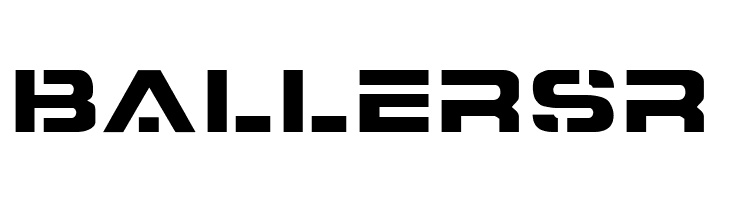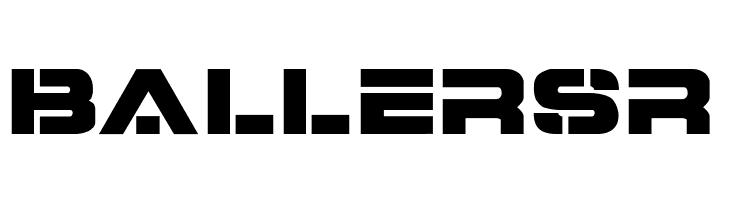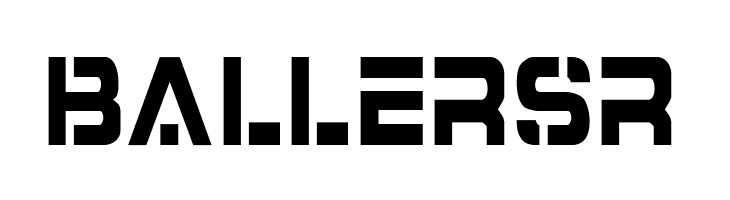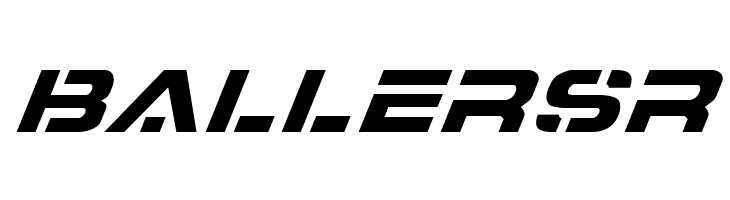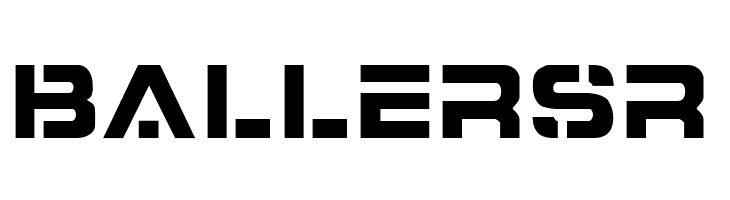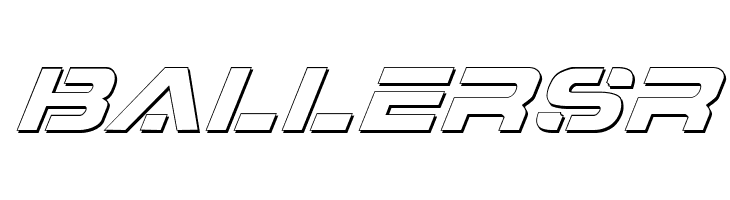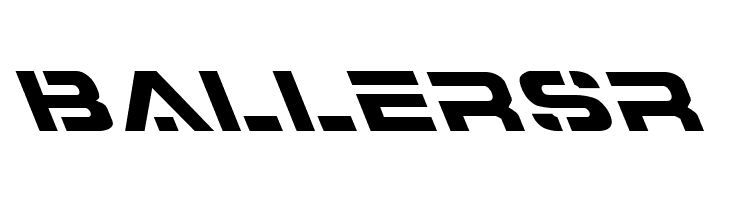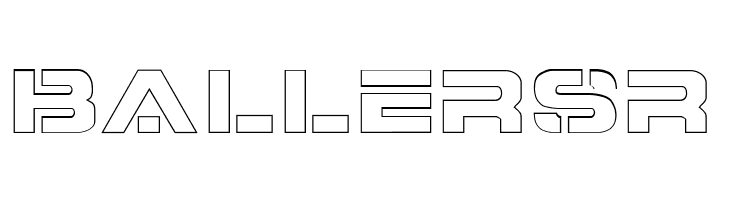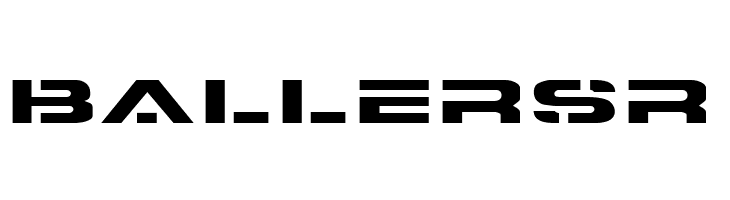
• 7th Service
A bold, futuristic font with geometric shapes and unique horizontal cuts.
• 7th Service
A bold, futuristic font with geometric and industrial design elements.
• 7th Service 3D
A bold, futuristic font with a 3D geometric design.
• 7th Service 3D Italic
A futuristic 3D italic font with outlined, angular characters for a modern look.
• 7th Service Bold
A bold, geometric font with a futuristic, stencil-like design.
• 7th Service Bold Italic
• 7th Service Chrome
A bold, futuristic font with horizontal stripes and geometric shapes.
• 7th Service Chrome Italic
A futuristic italic font with a striped, dynamic design.
• 7th Service Condensed
A bold, geometric font with a modern, industrial design and condensed width.
• 7th Service Condensed
A bold, geometric, and futuristic font with a condensed style.
• 7th Service Condensed Italic
A bold, condensed italic font with a modern, futuristic style.
• 7th Service Engraved
A bold, geometric font with a futuristic, industrial style and hollow outline.
• 7th Service Engraved Italic
A bold, engraved, italic font with a modern, three-dimensional look.
• 7th Service Expanded
A bold, futuristic font with geometric and technical design elements.
• 7th Service Expanded
A bold, futuristic font with geometric shapes and sharp angles.
• 7th Service Expanded Italic
A futuristic, expanded italic font with bold, angular shapes and unique cutouts.
• 7th Service Expanded Italic
A bold, expanded, and italicized font with a futuristic and dynamic style.
• 7th Service ExtraBold
• 7th Service Gradient